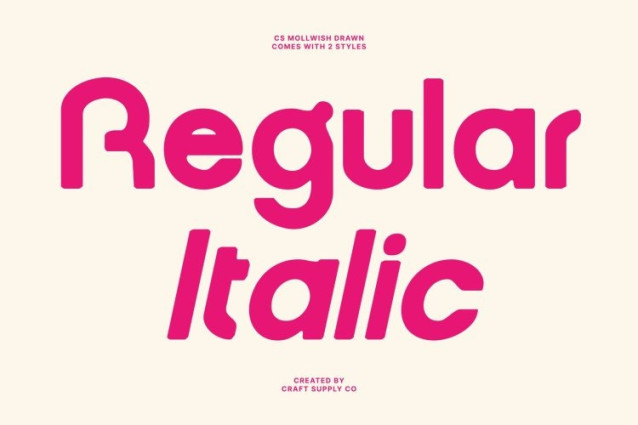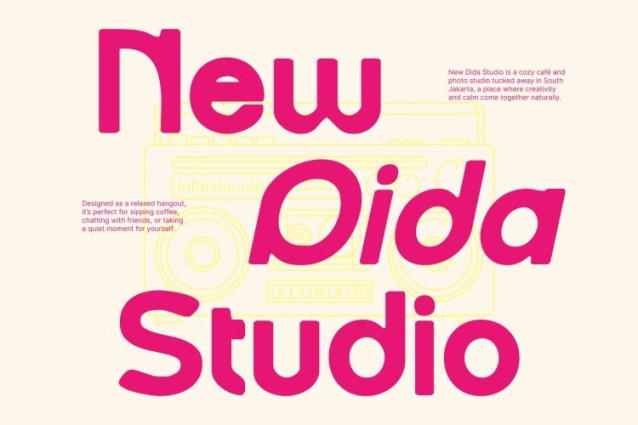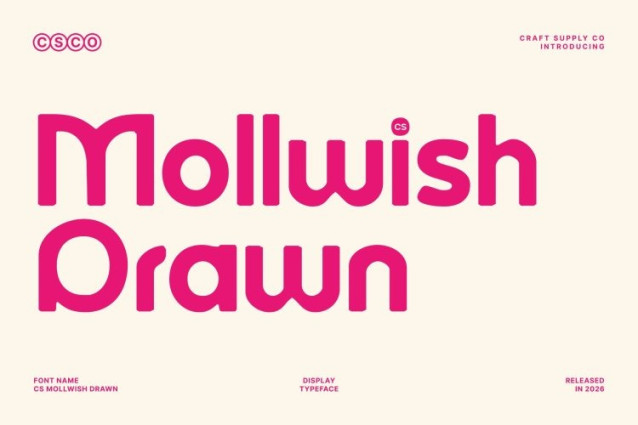
CS Mollwish Drawn Font
CS Mollwish Drawn Font This is a modern display sans serif font that combines geometric precision with quirky, distinctive details, enhanced by a subtle hand-drawn texture. Its clean, structured forms communicate clarity and confidence, while the drawn finish introduces warmth and artistic expression. The result is a typeface that feels fresh, modern, and uniquely expressive.
Geometric Structure with Playful Handcrafted Uniqueness
Built on strong geometric foundations, the letterforms maintain a sleek and structured appearance. Unexpected angles, smooth curves, and subtle drawn irregularities add personality and movement, preventing the design from feeling too rigid. This blend of precision and organic texture creates a font that stands out with bold, confident energy while remaining balanced and cohesive.
Futuristic Vibe with Creative Warmth
This font carries a subtle futuristic edge, making it feel contemporary and forward-thinking. The hand-drawn nuance softens its modern sharpness, adding character and originality. This combination results in a display font that feels innovative, stylish, and visually engaging without losing approachability.
Perfect for Modern Branding and Digital Design
Ideal for modern branding, digital graphics, posters, packaging, and creative campaigns, this font excels in headlines and statement typography. Its mix of geometric strength, quirky charm, and drawn texture makes it perfect for projects that demand a fresh, confident, and memorable visual voice.